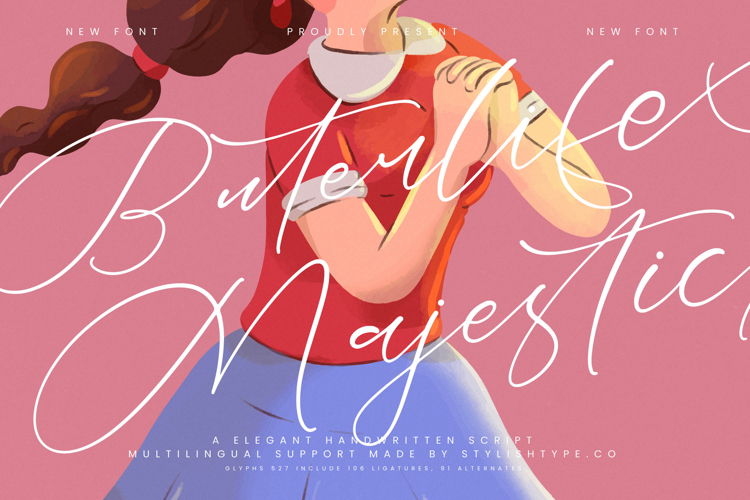
Buterlife Majestic - Elegant Handwritten Script
Elevate your creative vision with the ethereal charm of **Buterlife Majestic**, a font that captures the essence of fluid grace. This masterfully crafted script brings a touch of personalized luxury to every stroke, ensuring your designs resonate with a timeless beauty and an artisanal finish.
Inspired by the rhythmic motion of butterfly wings and the effortless flow of high-end calligraphy, this typeface was born from a desire to blend organic movement with sophisticated structure. The airy, light-weight lines evoke a sense of freedom and whimsical elegance, perfect for projects that require a soft yet commanding presence.
Infuse your work with a sense of exclusivity that rivals any **modern serif display** through this **luxury typography** centerpiece. This font offers a distinctive alternative to a standard **high-contrast serif**, functioning as a premier **editorial font** that delivers a significant **branding impact** for boutique labels and high-end lifestyle brands.
Aligning with the **modern serif trend** of mixing organic scripts with structured types, this face excels alongside current **editorial display fonts**. It represents the pinnacle of **character-driven typography**, offering a bespoke feel that mass-produced fonts simply cannot replicate in today's competitive design market.
This versatile script is an ideal choice for high-end **logo design** and cohesive **branding** identities across both digital and print media. Its romantic flair makes it the premier selection for **wedding** stationery, **fashion** lookbooks, beauty **packaging**, and high-impact **editorial** layouts in premium magazines.
The package is rich with creative potential, including over five hundred glyphs such as stunning **ligatures** and unique **alternates** that allow for a custom-tailored appearance. You will also find elegant **swashes** and full **multilingual** support covering **international characters** to ensure your message reaches a global audience with ease.